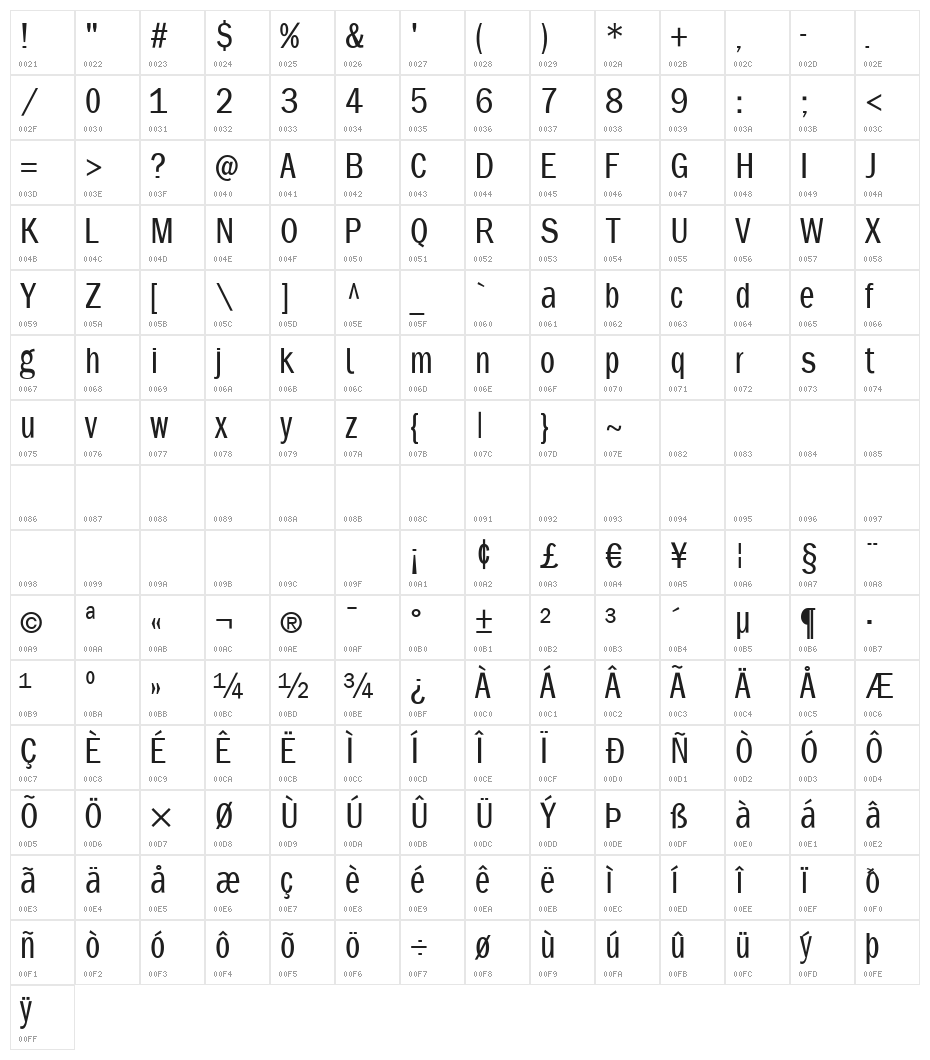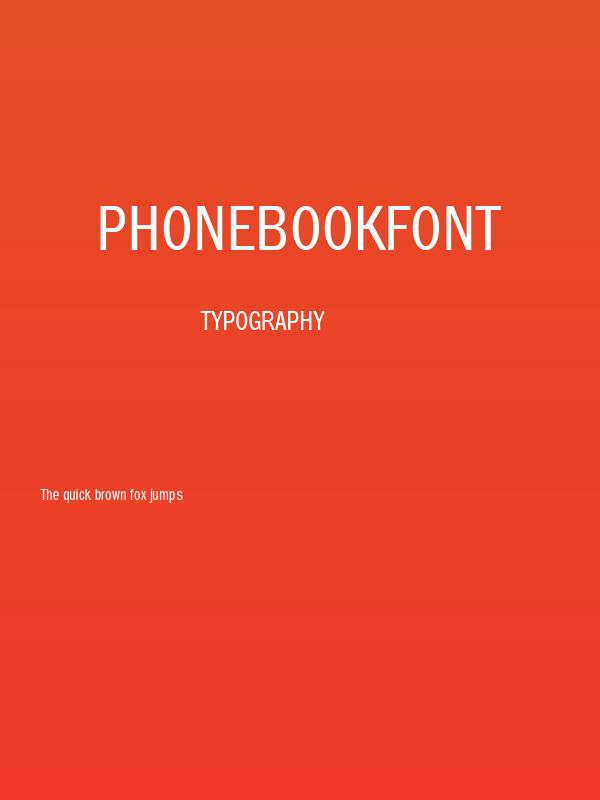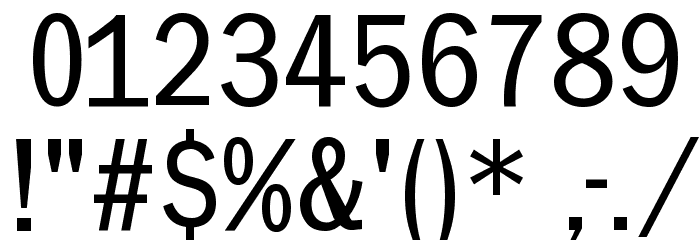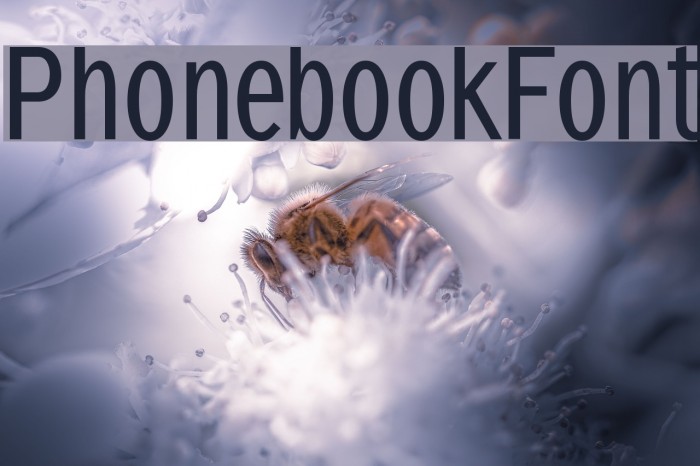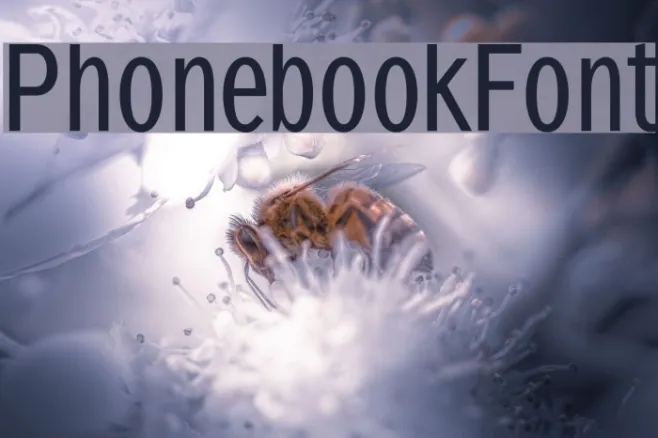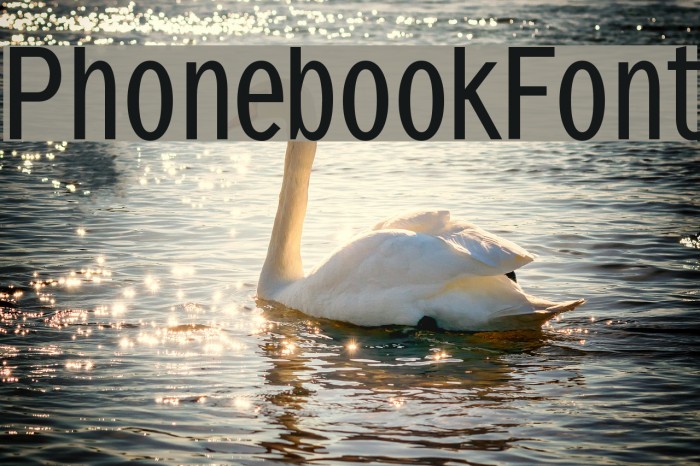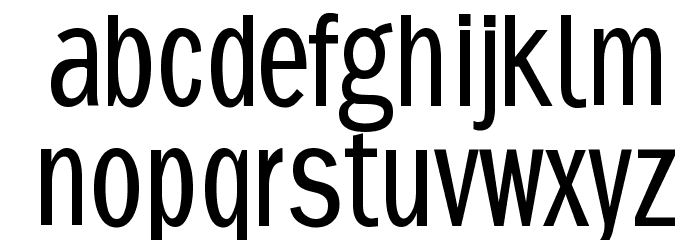
PhonebookFont Font
PhonebookFont Description
This font features a clean and straightforward sans-serif design, characterized by its uniform stroke width and lack of decorative elements. The letters are well-proportioned, offering excellent readability and a modern aesthetic. The uppercase and lowercase letters maintain a consistent style, with rounded edges and a slightly condensed form. The numerals are clear and distinct, making them suitable for various applications. Special characters are included, providing versatility for different types of text. Overall, this font exudes a professional and contemporary feel, ideal for digital and print media.
| Width | Condensed |
| Use Case | Headlines, Body text, Logos |
| Proposed Projects | Ideal for use in digital interfaces, corporate branding, signage, and editorial design. |